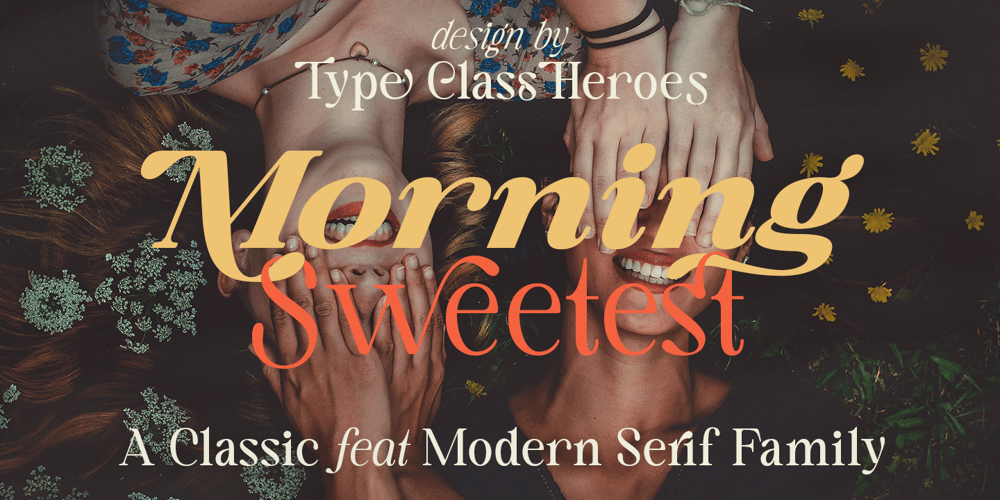
Morning Sweetest Font Family was designed by Pande Made and published by TypeClassHeroes. Morning Sweetest contains 36 styles and family package options. Morning Sweetest and Morning Sweetest Neue is a Classic feat Modern serif family. It’s clean and smooth with 9 variable weight combining the regular and italic and much alternative inside. Suitable to create any branding, product packaging, invitation, quotes, t-shirt, label, poster, logo etc.